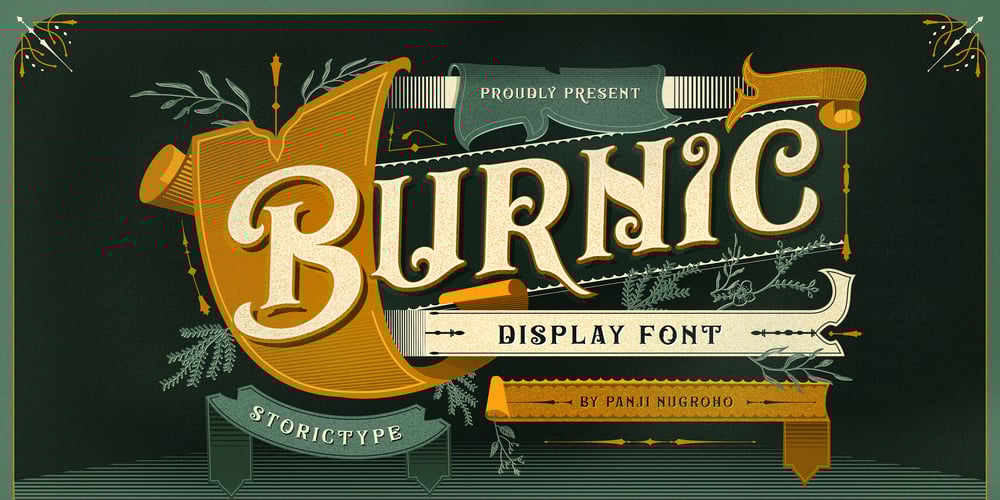
Burnic Font Family was designed by panji nugroho and published by Storictype. Burnic contains 1 styles and family package options. Introducing vintage classic display typeface its called Burnic Typeface. Inspired by antique, mix victorian and art deco period with decorative shapes*. Those all will make you work easily to create : Posters, Logos, Print, Quotes, Headers, Clothing, Labels, Packaging etc.Features : Character Set A-Z Numerals & Punctuations (OpenType Standard) Accents (Multilingual characters) Ligatures Above the description of this font, I hope you’re satisfied with what I have created. Thanks and enjoy designing.